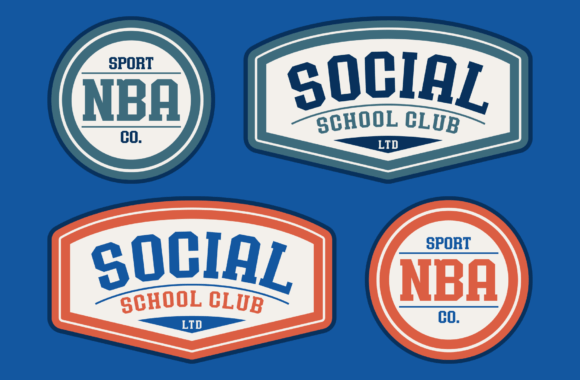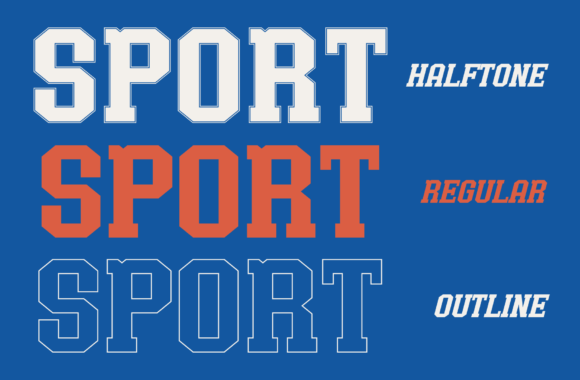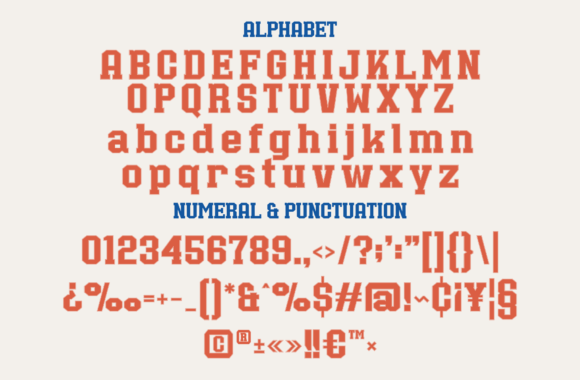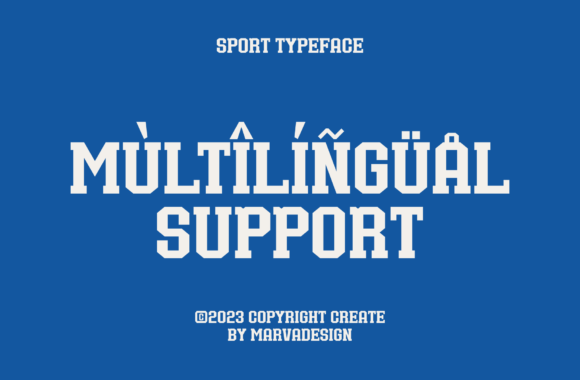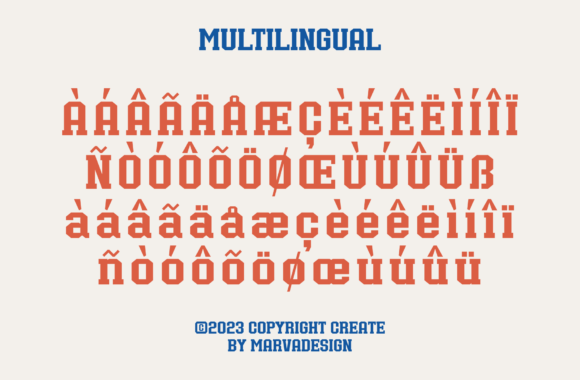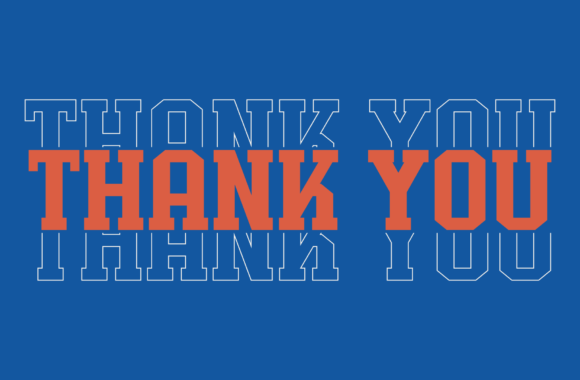
Bullsy College Font: Elevate Your Designs with a Timeless Classic
Are you tired of using generic fonts that fail to make your designs stand out? Look no further than the Bullsy College Font, a classic sport font that’s perfect for adding a touch of sophistication and elegance to your branding projects. In this article, we’ll introduce you to the Bullsy College Font, exploring its features, benefits, and uses, as well as provide you with tips on how to make the most of this versatile font.
What is Bullsy College Font?
The Bullsy College Font is an authentic display font designed to bring a sense of nostalgia and classic charm to your designs. With its bold and striking appearance, this font is ideal for creating eye-catching logos, templates, and products that demand attention. Whether you’re working on a sports-related project or simply want to add a touch of sophistication to your design, the Bullsy College Font is the perfect choice.
Key Features of Bullsy College Font
- Classic Sport Design: The Bullsy College Font boasts a classic sport design that’s reminiscent of traditional athletic typography.
- Authentic Display Font: With its bold and striking appearance, this font is perfect for creating eye-catching displays and headlines.
- Versatile: The Bullsy College Font is suitable for a wide range of contexts, from logos and templates to products and more.
- Elegant and Sophisticated: This font adds a touch of elegance and sophistication to any design, making it perfect for high-end branding projects.
Benefits of Using Bullsy College Font
So why choose the Bullsy College Font for your next design project? Here are just a few benefits of using this versatile font:
- Stand Out from the Crowd: With its unique and striking appearance, the Bullsy College Font helps your designs stand out from the competition.
- Professional and Polished: This font adds a touch of professionalism and polish to any design, making it perfect for high-end branding projects.
- Easy to Read: Despite its bold appearance, the Bullsy College Font is easy to read, making it perfect for use in a variety of contexts.
- Customizable: With its wide range of uses and applications, the Bullsy College Font can be customized to suit your specific design needs.
Using Bullsy College Font in Your Designs
So how can you use the Bullsy College Font in your designs? Here are a few ideas to get you started:
- Logos and Branding: Use the Bullsy College Font to create eye-catching logos and branding materials that demand attention.
- Template Design: Add a touch of elegance and sophistication to your templates with the Bullsy College Font.
- Product Design: Use this font to create striking product designs that stand out from the competition.
- Advertising and Marketing: The Bullsy College Font is perfect for use in advertising and marketing materials, such as billboards, flyers, and brochures.
Tips for Getting the Most out of Bullsy College Font
To get the most out of the Bullsy College Font, here are a few tips to keep in mind:
- Experiment with Different Sizes: Don’t be afraid to experiment with different font sizes to find the perfect balance for your design.
- Pair with Other Fonts: The Bullsy College Font pairs well with a variety of other fonts, so don’t be afraid to get creative and try out different combinations.
- Use in Combination with Images: This font looks great in combination with images, so consider using it in conjunction with photography or illustrations.
In conclusion, the Bullsy College Font is a versatile and elegant font that’s perfect for adding a touch of sophistication and classic charm to your designs. With its bold and striking appearance, this font is ideal for creating eye-catching logos, templates, and products that demand attention. Whether you’re a designer, crafter, or simply someone looking to elevate their branding, the Bullsy College Font is a timeless classic that’s sure to impress.